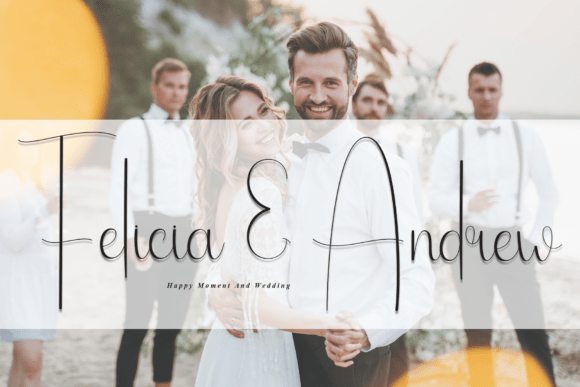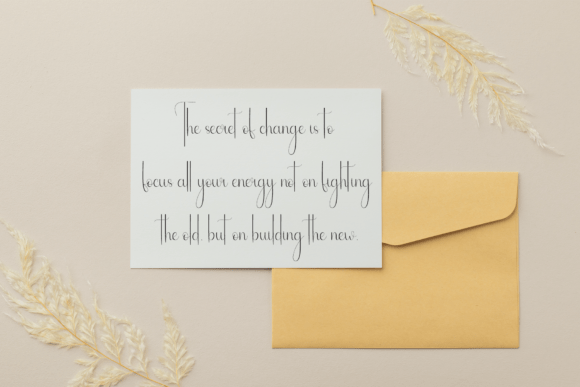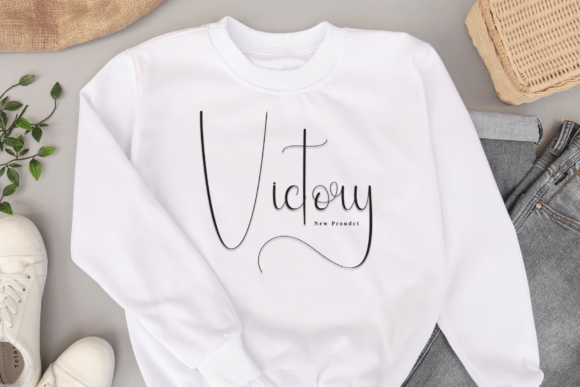
Better Saturday Font
Better Saturday is a stylish handwritten script font that radiates elegance and fluidity. Its smooth, flowing strokes create a natural and sophisticated feel, perfect for branding, invitations, and creative projects. With a graceful balance of charm and modernity, this typeface adds a personal, artistic touch to any design.